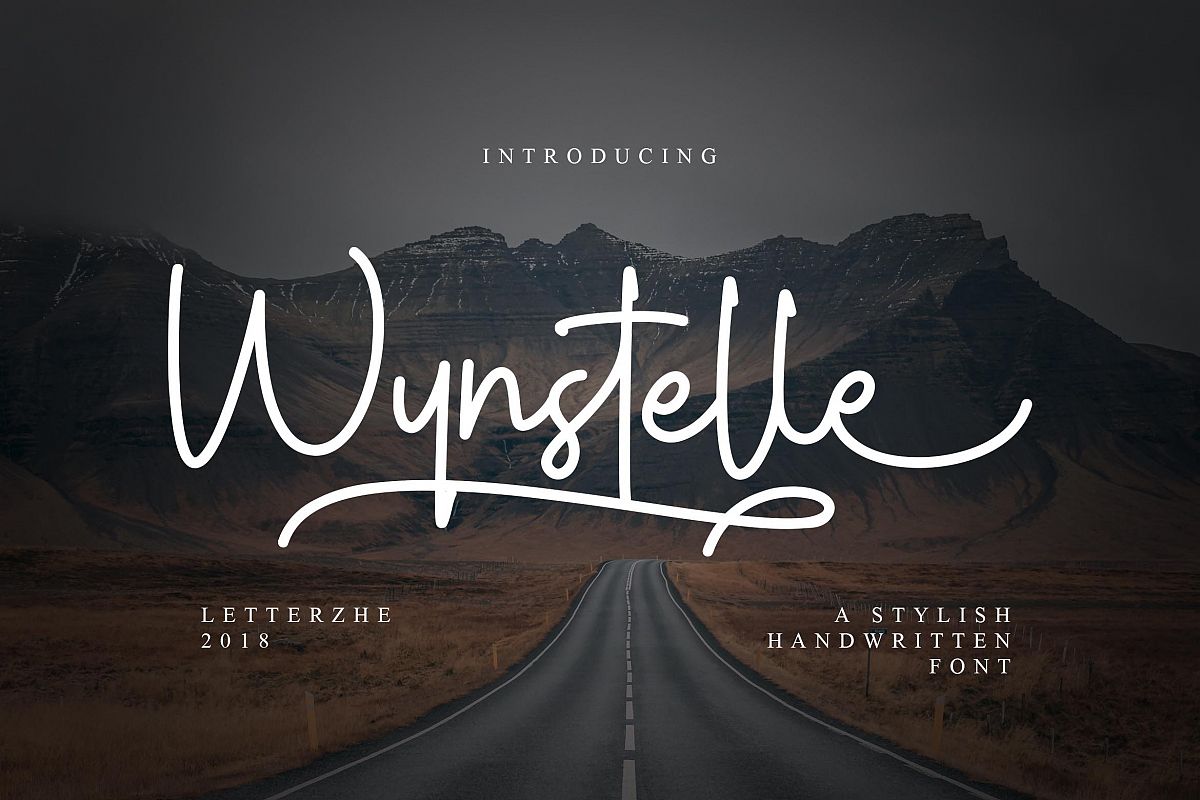
Wynstelle Script
The Wynstelle Script is a handwritten typeface with a customible style, it’s perfect for latterhead, classic apparel design, headline, logotype, poster, card, and etc.
- Numerals & Punctuations
- Alternate Styles
- Swashes